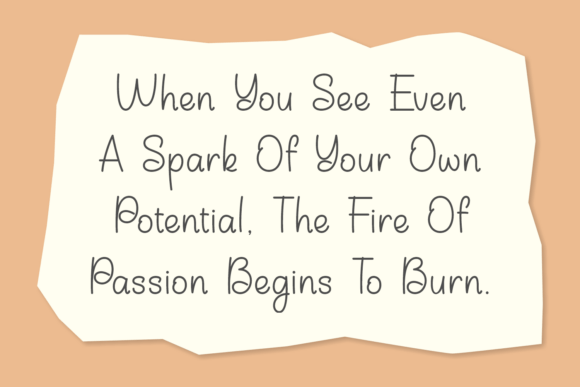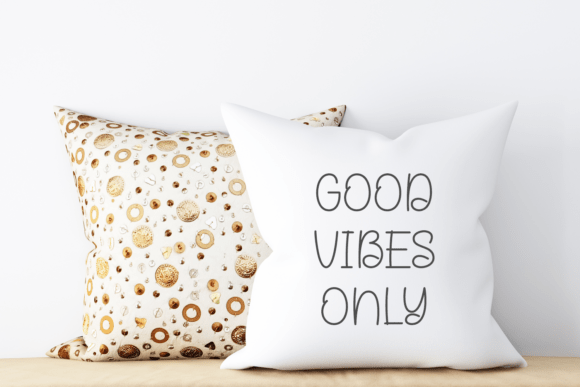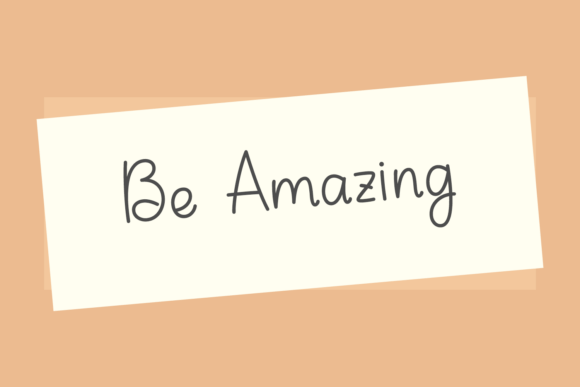
Discover the Charm of Doing Slowly Font: A Delicate Handwritten Script Font
In the world of typography, few fonts manage to capture the essence of whimsy and charm as effectively as the Doing Slowly font. This beautiful, handwritten script font is a gem for designers and crafters looking to add a touch of elegance and playfulness to their projects. With its light, monoline stroke and rounded, flowing forms, Doing Slowly exudes a sweet, gentle, and utterly unique aesthetic that is sure to captivate audiences of all ages.
The Characteristics of Doing Slowly Font
So, what makes Doing Slowly font stand out from the crowd? Here are a few key characteristics that contribute to its distinctive charm:
- Light, monoline stroke: The font features a consistent, light stroke that gives it a delicate and airy feel.
- Rounded, flowing forms: The rounded edges and flowing curves of the font create a sense of movement and fluidity, making it perfect for projects that require a touch of dynamism.
- Whimsical and charming: The font’s unique blend of elegance and playfulness makes it an excellent choice for projects that need to convey a sense of personality and whimsy.
Doing Slowly font is an incredibly versatile font that can be used in a wide range of projects, including:
- Children’s books: The font’s playful, whimsical nature makes it an excellent choice for children’s books, where it can help bring stories to life and engage young readers.
- Personal blogs: The font’s gentle, elegant aesthetic makes it perfect for personal blogs, where it can add a touch of warmth and personality to written content.
- Custom stationery: The font’s unique charm makes it an excellent choice for custom stationery, where it can help create a lasting impression and make correspondence stand out.
- Gentle branding: The font’s soft, inviting aesthetic makes it perfect for gentle branding, where it can help create a sense of approachability and warmth.
Why Designers and Crafters Love Doing Slowly Font
So, why have designers and crafters fallen in love with Doing Slowly font? Here are a few reasons:
- Unique aesthetic: The font’s distinctive blend of elegance and playfulness makes it a standout in the world of typography.
- Easy to read: Despite its whimsical nature, the font is incredibly easy to read, making it perfect for projects where legibility is key.
- Versatile: The font’s versatility makes it an excellent choice for a wide range of projects, from children’s books to custom stationery.
Tips for Using Doing Slowly Font Effectively
To get the most out of Doing Slowly font, here are a few tips to keep in mind:
- Use it sparingly: While the font is beautiful, it’s best used sparingly to avoid overwhelming the reader.
- Pair it with contrasting fonts: Pairing the font with contrasting fonts can help create visual interest and make your project stand out.
- Experiment with sizes and colors: Don’t be afraid to experiment with different sizes and colors to find the perfect combination for your project.
In conclusion, Doing Slowly font is a delicate, whimsical, and incredibly charming handwritten script font that is sure to captivate audiences of all ages. With its light, monoline stroke and rounded, flowing forms, it’s perfect for projects that need an inviting, authentic, and soft touch of casual script. Whether you’re a designer or crafter, Doing Slowly font is an excellent choice for anyone looking to add a touch of elegance and playfulness to their work.